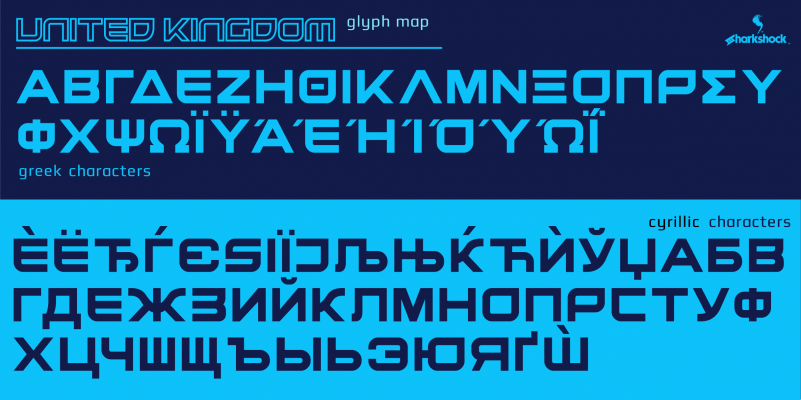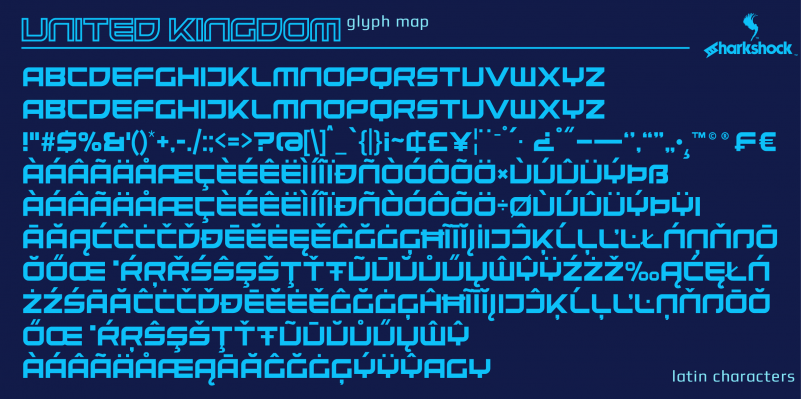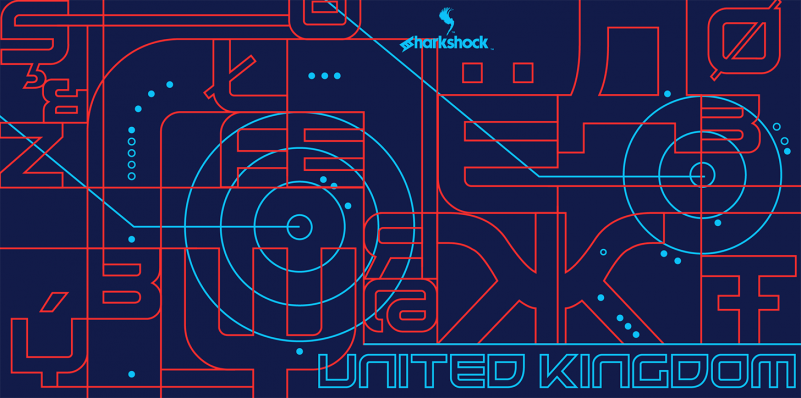
United Kingdom Display Font
by Sharkshock
I stumbled upon a sharp and futuristic concept while working on a logo for a client. This didn’t end up making it into the finished project but after designing more letters
an entire alphabet evolved. The end result is Norwood; an all caps display font whose characters have unexpected corners where curves would normally be assumed. The line weight is
consistent throughout and gives an “edgey” feel. Letters look great next to each other with very little kerning applied. Use the glyphs panel when working with Greek for proper
diacritics. This typeface wasn’t tailored for body text so check the glyph map for characters needed. Use United Kingdom for sports jerseys, logos, or action movie posters.